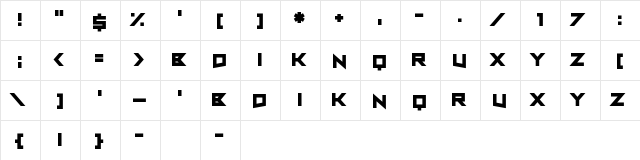
Close and Open Regular
| Designer | Allison JJ |
Design Context for Close and Open Typeface
Close and Open takes a measured approach to typography — its balanced proportions and neutral character make it a reliable workhorse for both digital and print work.